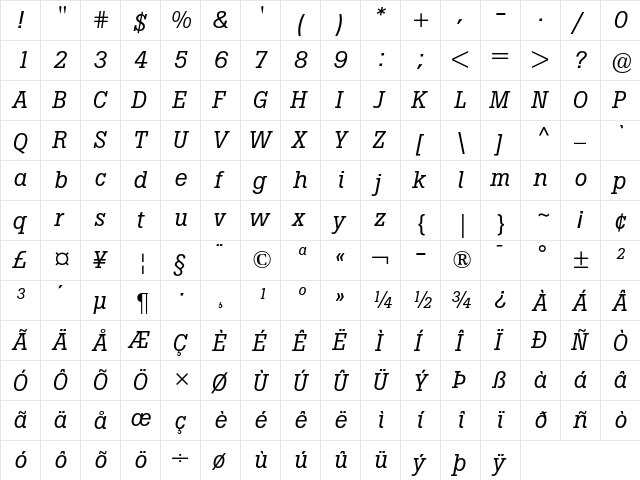
Boton Italic
Design Context for Boton Typeface
Boton is a composed and adaptable typeface that performs quietly and consistently across a wide range of design contexts. The slanted form adds forward momentum and visual energy.
Pro Tip: Try Boton for annotation and caption copy alongside an upright companion — the contrast in angle creates a dynamic but ordered typographic system.